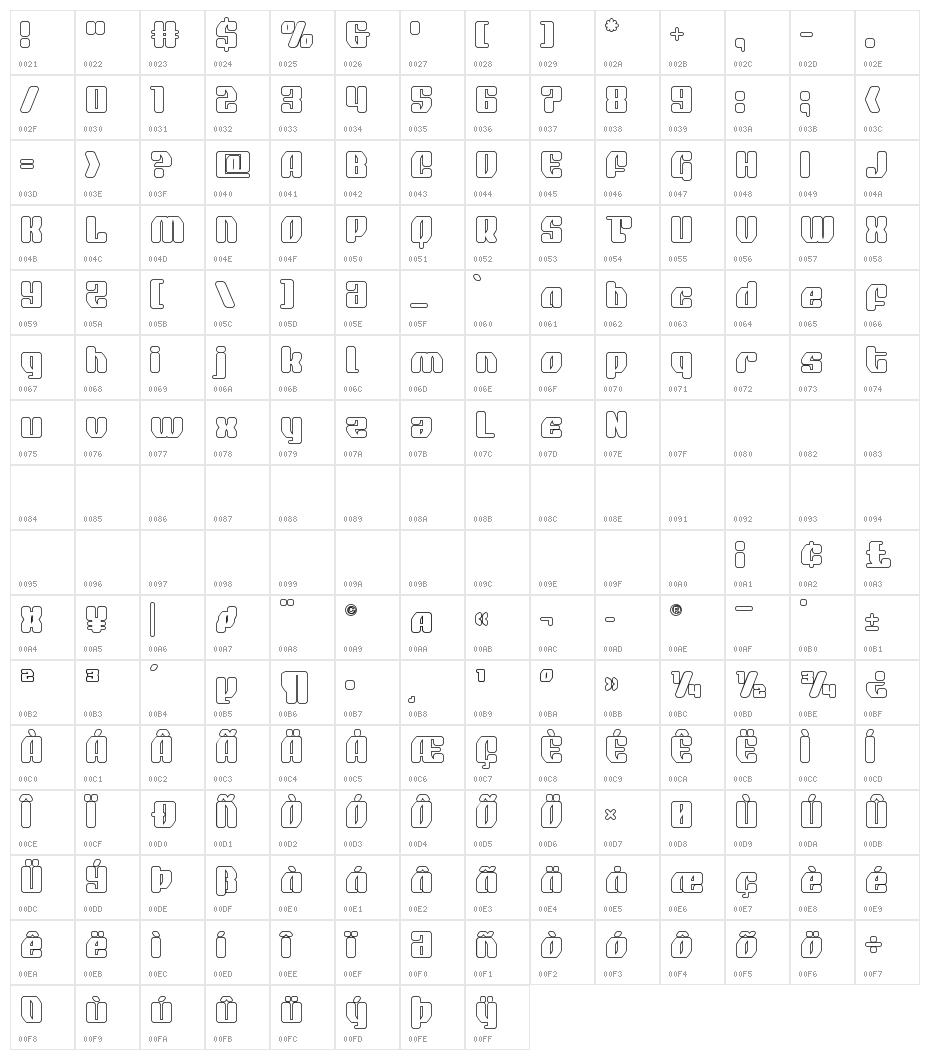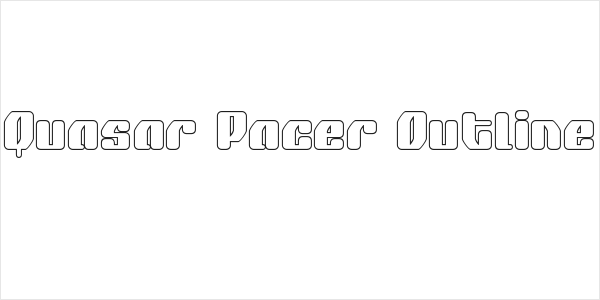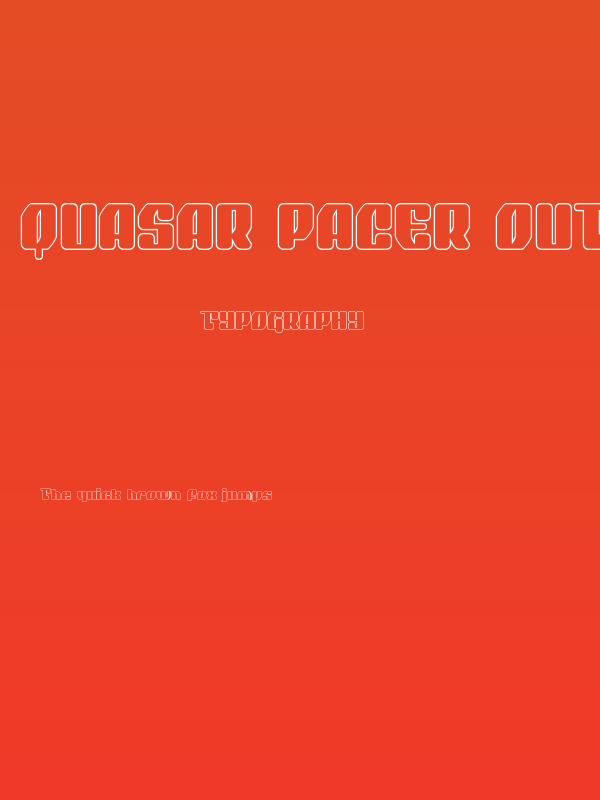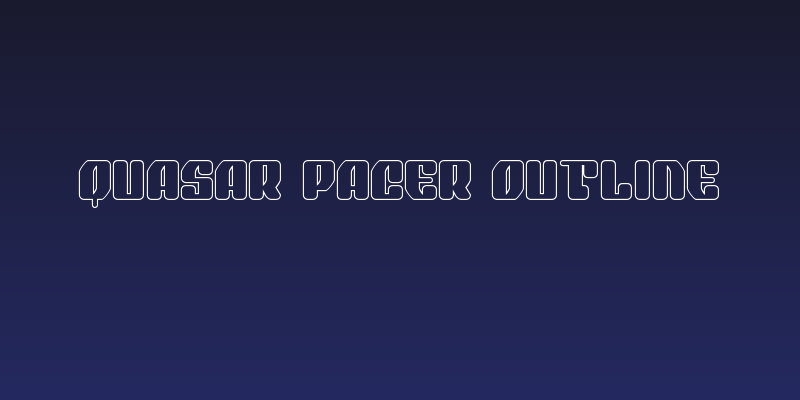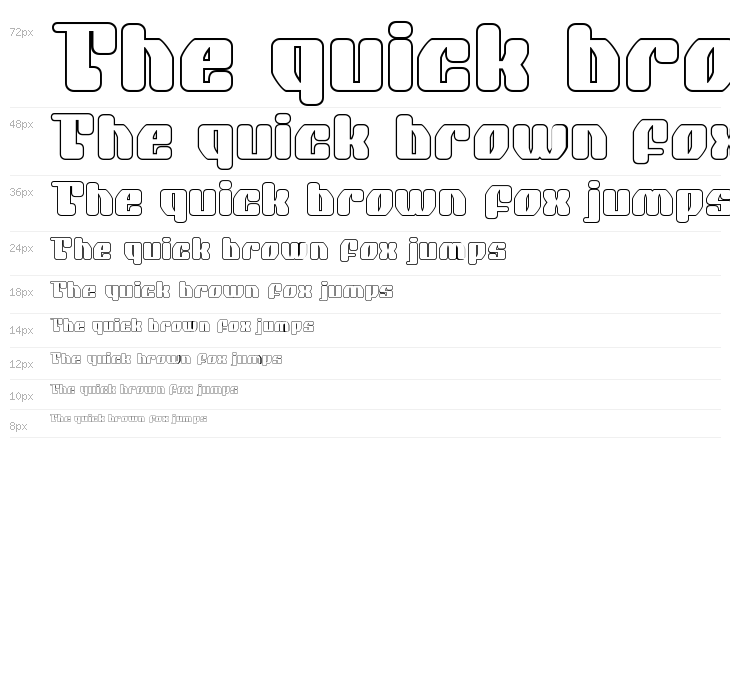
Quasar Pacer Outline Font
Quasar Pacer Outline Description
This font features a bold, geometric outline style that gives it a futuristic and digital appearance. Each character is constructed with a consistent thickness, creating a uniform and cohesive look. The uppercase and lowercase letters maintain a similar structure, enhancing readability while adding a unique flair. The numbers and special characters are designed to match the overall aesthetic, making this font versatile for various design needs. Its outline nature allows for creative use of color and layering, making it ideal for eye-catching designs.
| Proposed Projects | Ideal for digital art, futuristic branding, tech-themed posters, and modern logos. |